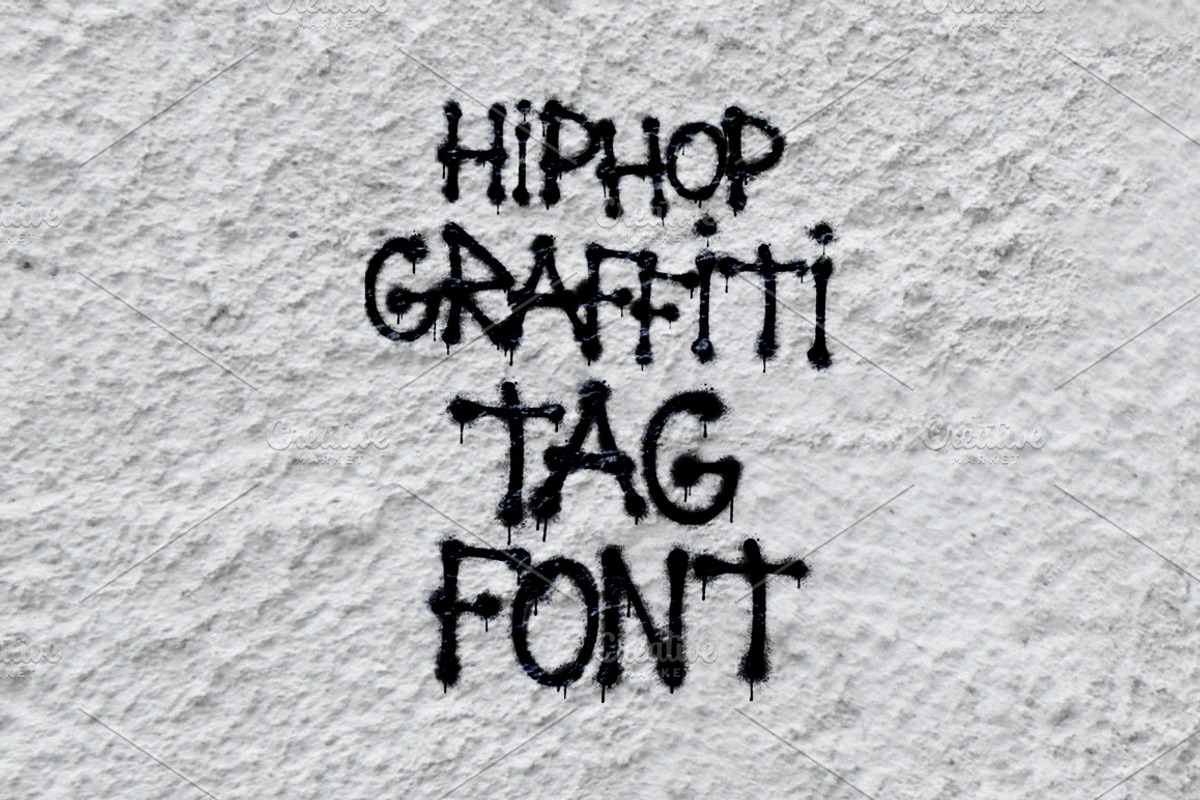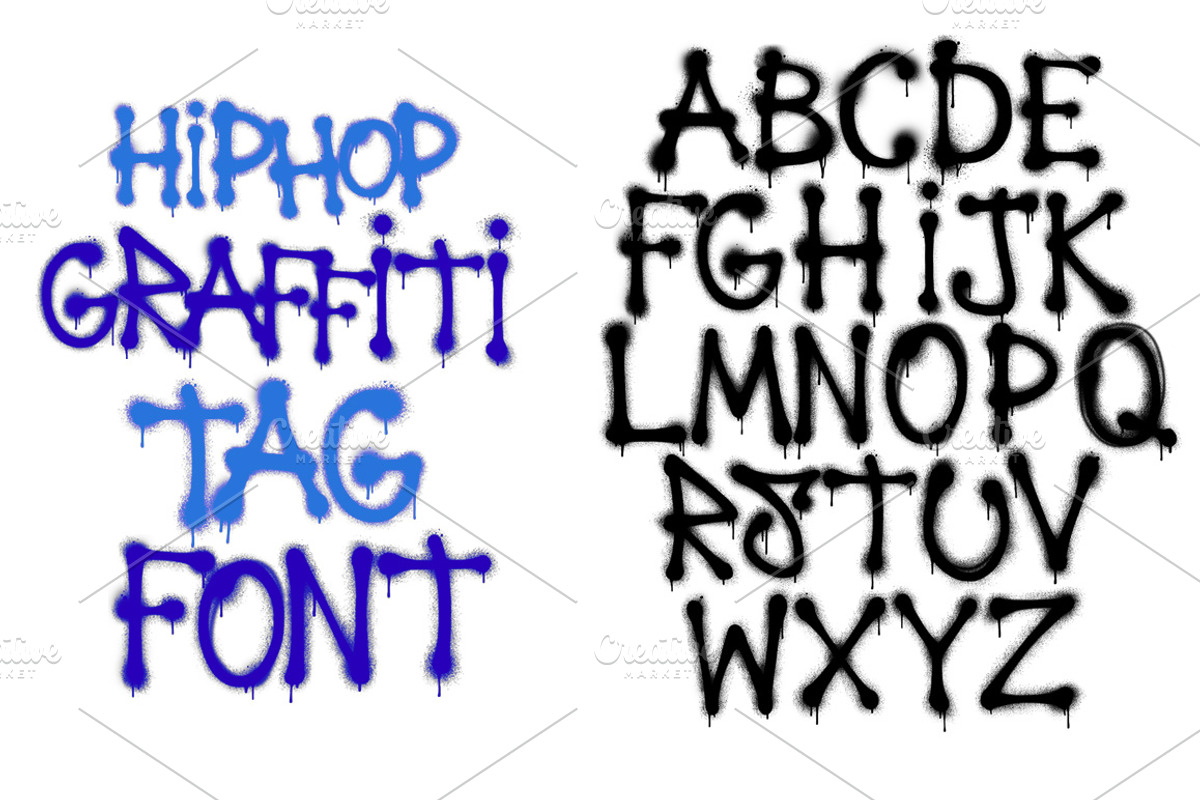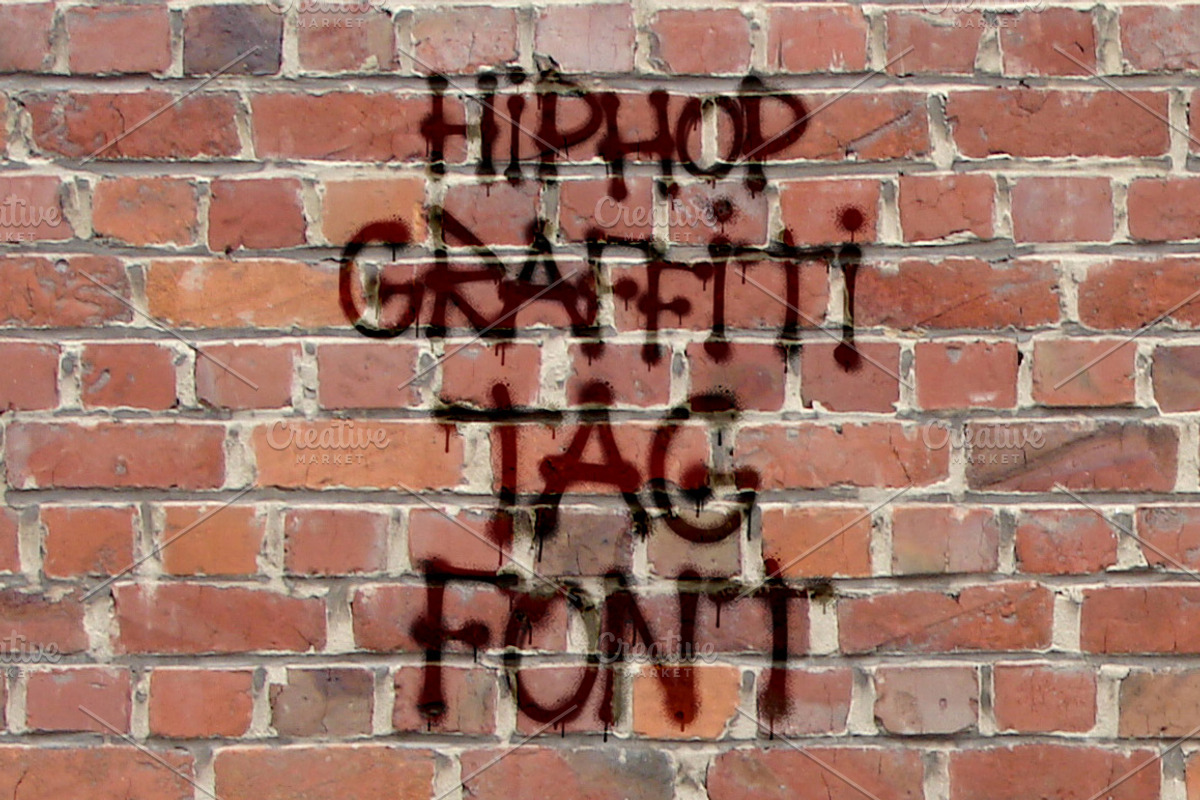
Hip Hop Graffiti Tag Spray Font
Graffiti Spray Alphabet in good raster quality.
A great style of letters. Nice Oldschool look, which makes it perfectly fitting for the actual 90s print style. It a pity, that it is just a png file and it takes pretty much works to make it useable for Print lettering. I had to vectorize it and separate some Letters from each other, then arrange the Letters by hand... The effect is beautiful, but I´d probably make a font file out of it. Anyway, thanks for your nice work!